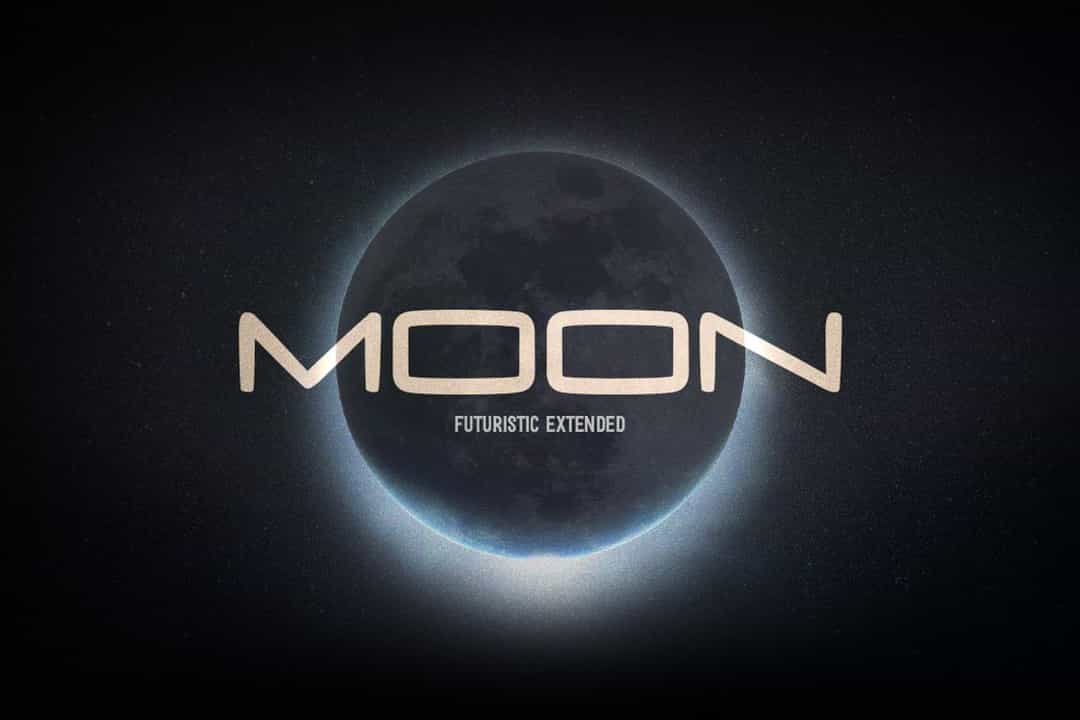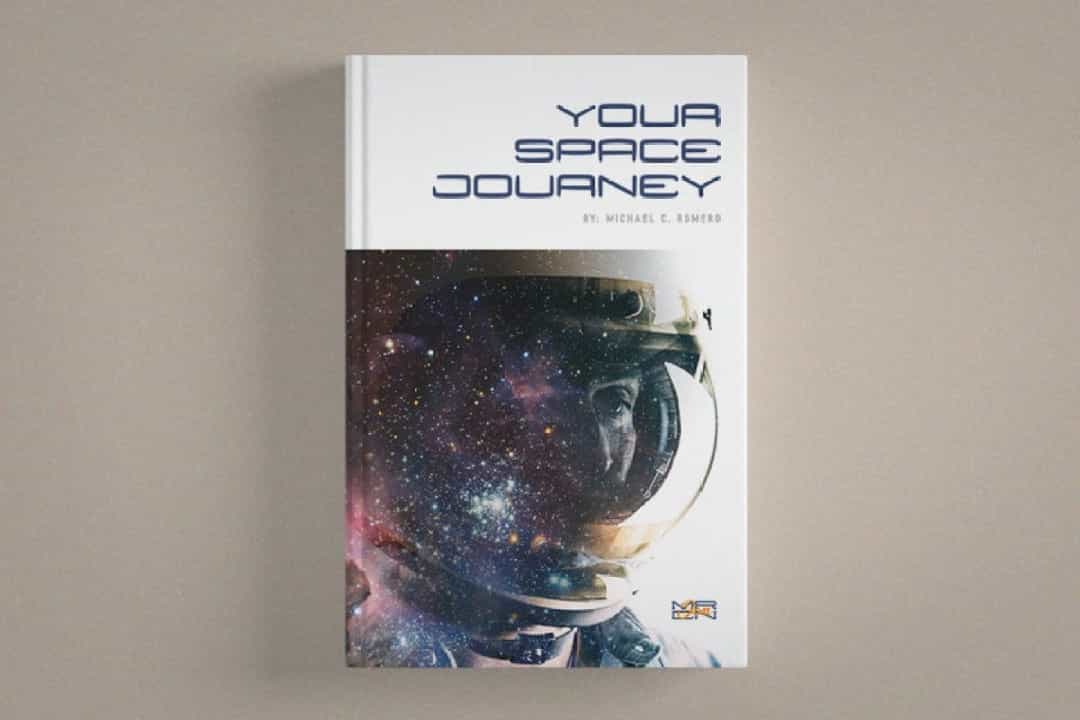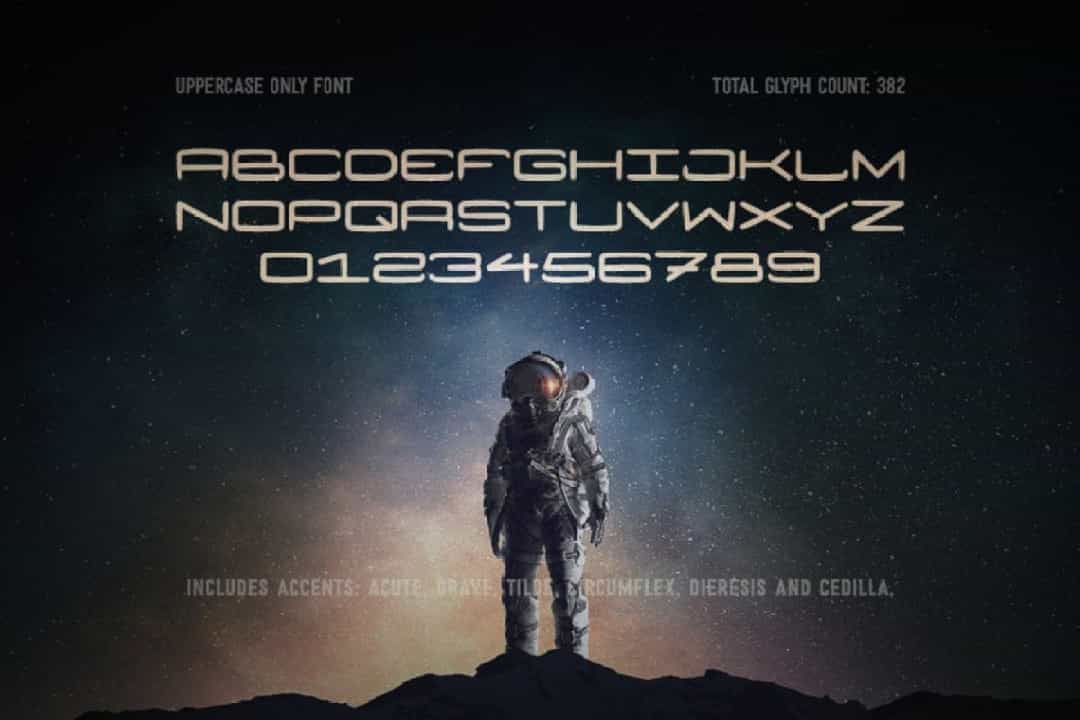
Moon is a typeface created by hand in order to fit brief texts that are quite readable during a space mission on a space station. The idea behind its creation was to use the concept of expanded type design which suits well to a space science fiction theme and has smooth rounded edges inspired from its pencil sketches.